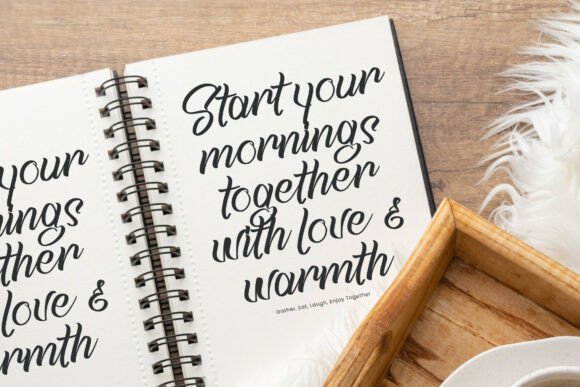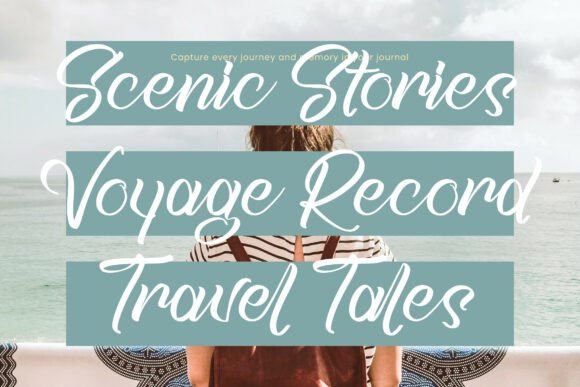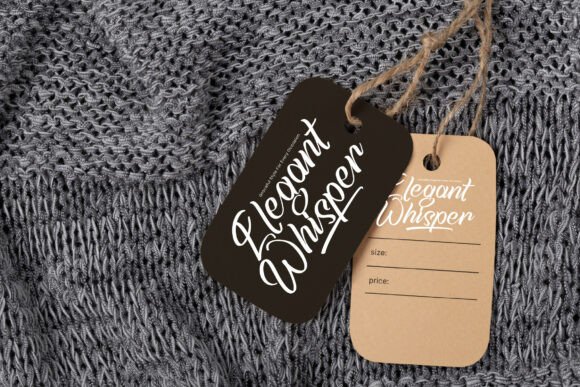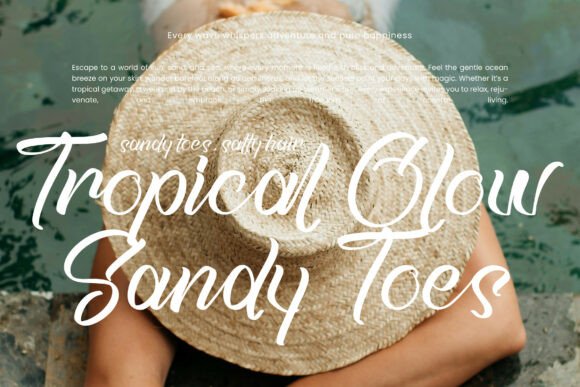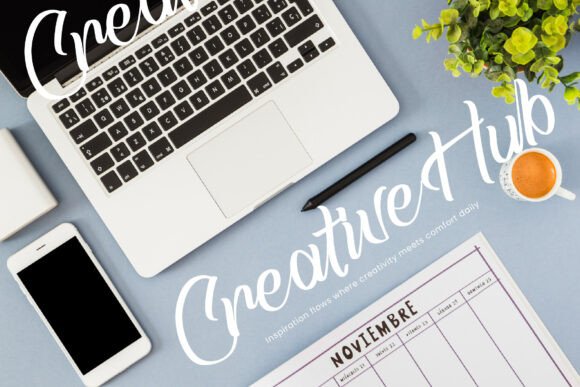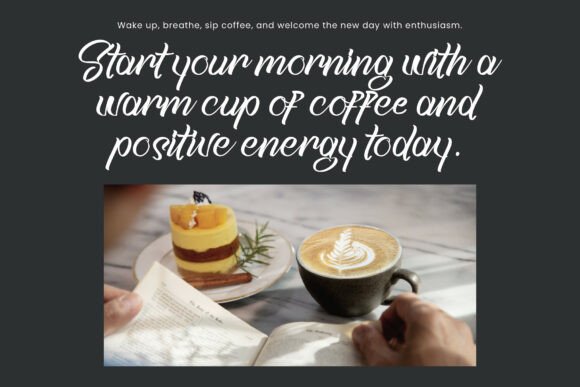
Unleash Elegance with Backing Font: The Ultimate Guide
Are you on the hunt for a typeface that exudes sophistication, opulence, and a touch of modern elegance? Look no further than Backing Font, a stunning script typeface from Operatype that’s taking the design world by storm. In this comprehensive guide, we’ll dive into the world of Backing Font, exploring its features, applications, and why it’s a must-have for designers and crafters alike.
Introducing Backing Font: A Stylish Contemporary Handwriting Style
Backing Font boasts a stylish contemporary handwriting style that’s perfect for those seeking a typeface that seamlessly blends sophistication and luxury. This exquisite modern script typeface is designed to elevate your designs, whether you’re working on branding, logos, homeware motifs, product packaging designs, or even crafting memorable mug designs, quotes, or posters.
Endless Applications for Backing Font
The versatility of Backing Font is one of its most significant advantages. Its beautiful strokes can enhance a wide range of projects, including:
- t-shirt designs
- book covers
- business cards
- invitations
- greeting cards
- labels
- photographs
- watermarks
- special events
Whether you’re a designer, crafter, or DIY enthusiast, Backing Font is the perfect choice for adding a touch of class and sophistication to your projects.
- ligatures
- alternate letters
- swashes
This means you can experiment with various styles and effects, pushing the boundaries of your creativity.
Why Choose Backing Font?
So, what sets Backing Font apart from other typefaces? Here are just a few reasons why designers and crafters are falling in love with this exquisite font:
- Elegance and sophistication: Backing Font exudes luxury and refinement, making it perfect for high-end designs.
- Versatility: From branding to packaging, and from digital to print, Backing Font is suitable for a wide range of applications.
- Premium edge: Add a touch of class to your designs and stand out from the crowd with Backing Font’s premium feel.
Tips and Tricks for Getting the Most Out of Backing Font
To unlock the full potential of Backing Font, here are some expert tips and tricks:
- Experiment with ligatures and swashes: Add a touch of elegance to your designs with Backing Font’s beautiful ligatures and swashes.
- Mix and match font sizes: Create visual interest by combining different font sizes and styles.
- Play with color: Backing Font looks stunning in a range of colors, from metallic to pastel.
- Don’t be afraid to get creative: With Backing Font, the possibilities are endless – don’t be afraid to push the boundaries of your design.
In conclusion, Backing Font is a game-changer for designers and crafters seeking to add a touch of elegance and sophistication to their projects. With its stylish contemporary handwriting style, versatility, and ease of use, this exquisite modern script typeface is sure to become a favorite in your design arsenal. Whether you’re working on branding, packaging, or digital designs, Backing Font is the perfect choice for those who demand the best.